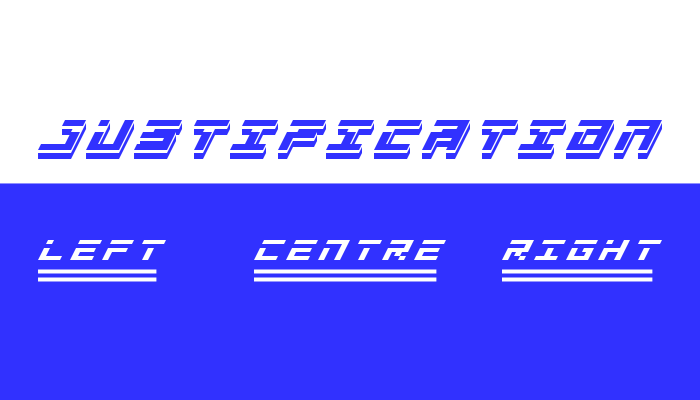
• CAPITAL LETTERS HAVE A WHITE STRIKETHROUGH. LOWERCASE LETTERS ARE COMPLETE.
ALSO SEE THE TWO-DIMENSIONAL VERSION OF THIS FONT, “PARADOXICAL-VORTEX-FLATTENED.”
This is great. Any plans to add the diacritics to the accented characters?
Thanks. I wasn't going to do the accents because we hardly ever use them in English, and I don't really know what they're for. Is strikethrough the proper name for fonts with a chunk missing in each character? eg. Star Trek: The Next Generation and Blade Runner fonts.
@TH3_C0N-MAN I think “strikethrough” makes sense – not sure whether there is another term. I only mentioned the accents because the slots for accented letters are filled but without the accents. The accented letters are like different letters in other languages – so someone writing in German or French would find it difficult to write using this font. Not too much work to make either.
Yeah, I agree. It would be awesome if you made the accents. The font is fantastic, by the way.
True, accented letters are no longer used in modern written English, sadly. I plead for diacritics as your font is eye catching and unusual,  all the work you did to get that beautiful 3D italic look should be admired and celebrated in games, school project titles, labels, headers, signs etc; they can easily be imagined in foreign language projects made by English speakers (yes some of  them learn foreign languages) ;) and we also have foreign Fontstruct members who might want to use it a project.
Diacritics will be quick to do as you have all the elements as part of the glyphs you created; all the complicated time consuming work is done on the basic Latin glyph band and you only need to cut-and-paste those elements to have a  very useful very decorative legible and novel font.
Wow, those look perfect. Well done, specially wow and my respect if you haven't learned about diacritics and their uses while you were studying at school as a youngster.
Now we could write about demolishing a German "Bär" and be questioned on the subject by the authorities should we stay there -- which would be far less painful and have far less repercussions than being punished by them and being hunted down internationally should we have written about demolishing a German "Bar" ;)
And while in France we'd very likely appreciate a normal huge food parcel "livré" from the USA/UK/AUS/NZ in preference to a normal huge "livre"  :D
Reminds me of mid-2000s fr8 graffiti. Cool as all hell and really invokes the early 2000s pixel age.
Wow, it's probably a coincidence, it looks similar to my "Sebrantic" font. The similarity lies in the use of italics and this 3rd dimensional shadow with space between the letters and the shadow. It's because of the not so numerous shaped blocks, why someone is inventing this art of font-style again.
Compare Sebrantic. It’s a microgenre.
@kardaw Yeah I just compared them. I think your one is a lot easier to read. In mine, I always thought of the black part under the letters being more like the vertical walls of the character with a white rim, instead of a shadow.